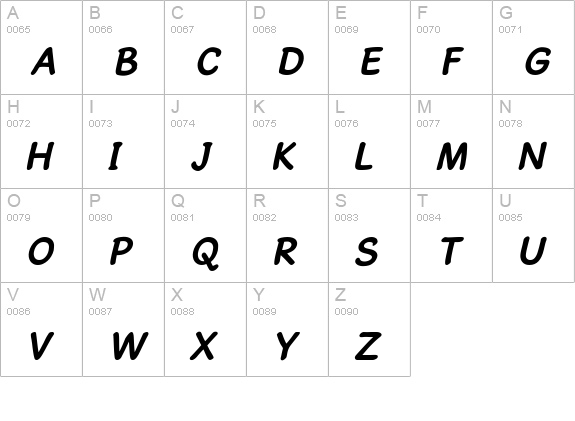
GosmickSansBoldOblique Font Details
GosmickSansBoldOblique is a striking and versatile typeface that combines boldness with elegance. Its slanted style adds a touch of dynamism and sophistication to any design project, making it perfect for headlines, posters, and branding materials. The strong and confident letterforms exude a sense of modernity and creativity, making GosmickSansBoldOblique a standout choice for those looking to make a statement with their typography. This font is not only visually appealing but also highly functional, ensuring excellent readability in both print and digital formats. Its unique design elements set it apart from other typefaces, making it a distinctive choice for designers seeking to add a touch of personality to their work. Best of all, GosmickSansBoldOblique is available for free download at FontsMarket.com. This means that you can easily access this stylish and eye-catching font without any cost, allowing you to elevate your design projects without breaking the bank. Don't miss out on the opportunity to enhance your work with the bold and expressive GosmickSansBoldOblique font today!